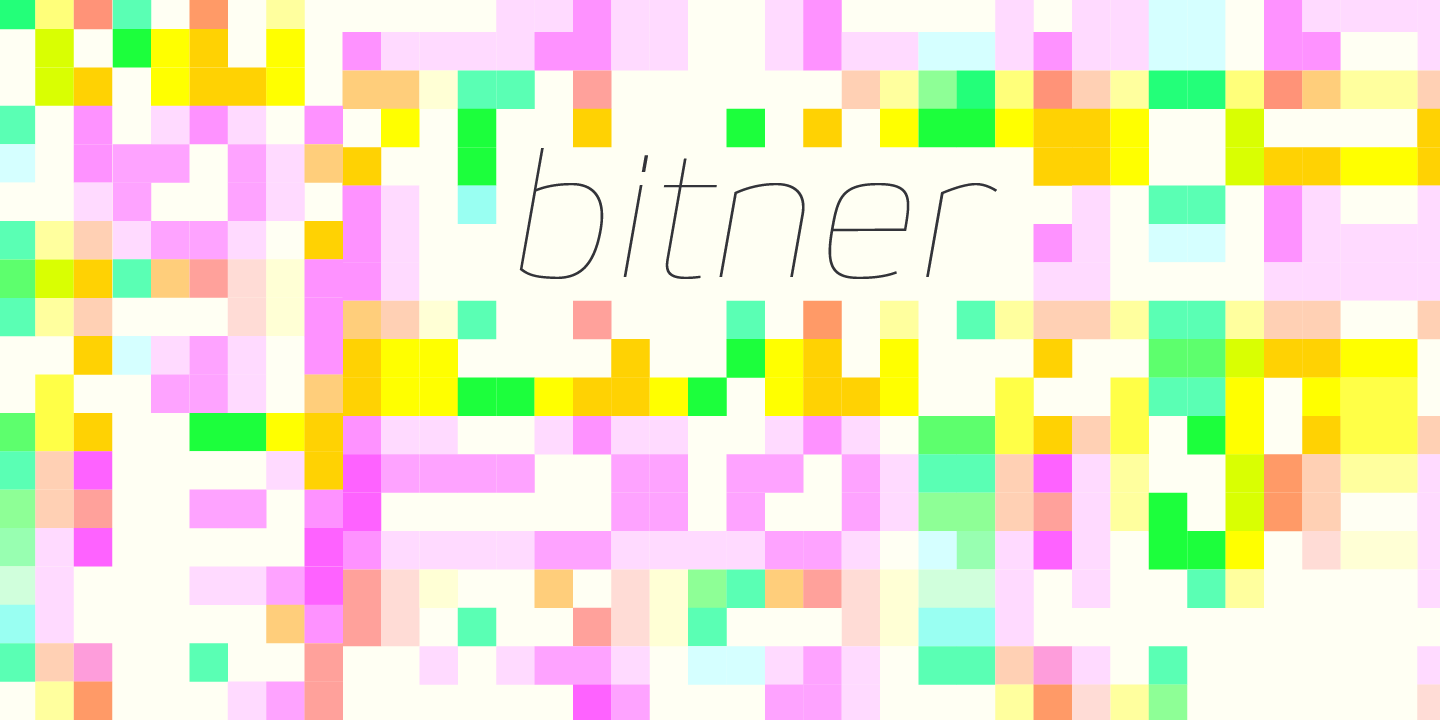
The Bitner Font is incredibly versatile, making it an excellent choice for a wide range of design projects that aim for a clean, contemporary, and highly readable aesthetic. Imagine it providing a fresh and modern voice for engaging blog content, ensuring effortless reading for digital articles, or giving a friendly yet professional look to branding for consumer-focused businesses. It's also perfect for crafting clear and concise headlines in digital advertising, designing intuitive user experiences for web and mobile applications, or enhancing the legibility of educational materials. Its often well-balanced proportions, open forms, and contemporary sans-serif or humanist design make it ideal for anything that requires immediate understanding and a welcoming feel for the reader.
What makes the Bitner Font so exciting is its ability to effortlessly blend casual charm with professional clarity. It's not just a typeface; it’s a design staple that offers both reliability and an inviting visual presence. Its meticulously crafted letterforms contribute to superb legibility, even at smaller sizes, making it perfect for both display and extended body text. In a world saturated with digital content, this font stands out by offering a harmonious balance between aesthetic appeal and practical readability, ensuring your message is not only seen but truly absorbed with ease and approachability.
The Bitner Font family typically includes a comprehensive range of weights and styles to provide maximum flexibility for designers. While specific variations can differ, you can often expect to find light, regular, medium, semi-bold, and bold versions, along with corresponding italic styles. This extensive array of options allows for sophisticated typographic hierarchies and ensures the font can adapt seamlessly to various design needs, from subtle informational text to prominent subheadings, offering unparalleled versatility for both print and digital applications.
For those looking to infuse their designs with superior readability, a clean contemporary feel, and an approachable authority, the Bitner Font Free Download is an invaluable resource. This robust typeface, with its timeless appeal and exceptional versatility, will undoubtedly elevate your creative projects and ensure your message is delivered with impactful clarity.